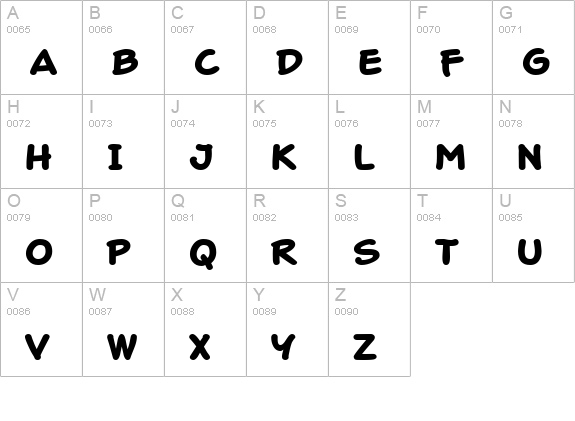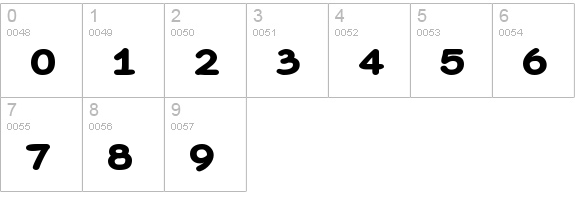
Draftsman Casual 6B Font Details
Draftsman Casual 6B font is a charming and playful typeface that exudes creativity and a hand-drawn aesthetic. Its quirky and uneven lines give it a unique character, perfect for adding a touch of whimsy to your projects. The casual and relaxed vibe of this font makes it ideal for a variety of design applications, from greeting cards to posters to social media graphics. Best of all, Draftsman Casual 6B font is completely free to download at FontsMarket.com. This means you can easily incorporate this delightful font into your designs without any cost. Whether you're a seasoned designer looking to add a fun twist to your work or a beginner exploring different typography styles, Draftsman Casual 6B font is a fantastic choice that won't break the bank. Download it today and let your creativity flow with this charming and free typeface.